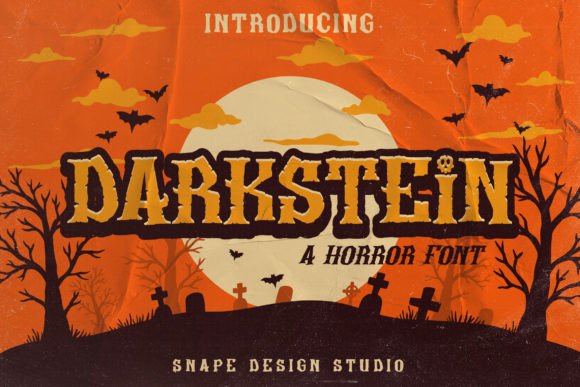
Prepare to unleash the dark, haunting beauty of Darkstein, a horror-themed decorative font that will send shivers down your spine. Crafted by the skilled hands of snapedsgn, this font is the perfect companion for your Halloween party posters, horror-themed designs, and any project seeking a touch of the macabre.
With its jagged edges and menacing curves, Darkstein captures the essence of the supernatural, adding an eerie elegance to your designs. Each letter drips with mystery, invoking images of haunted houses, blood-curdling screams, and the spine-chilling thrill of a good scare.
Step into the realm of darkness and let Darkstein guide you through a labyrinth of chilling possibilities. Whether you're creating a movie poster that promises heart-pounding suspense, a logo that exudes an aura of mystery, or a book cover that hints at the unspeakable horrors within, Darkstein will amplify your message and leave your audience spellbound.
But Darkstein's dark allure extends beyond the realm of horror. Its playful nature lends itself to quirky designs, adding a touch of whimsy to your creative endeavors. Imagine invitations that transport your guests to a haunted carnival, or T-shirt designs that celebrate the joy of all things spooky.
Darkstein is a font that defies boundaries, embracing both the terrifying and the delightful. It's a font that demands attention, captivating your audience with its intricate details and undeniable charm. Unleash your imagination and let Darkstein cast its spell on your next project. Dare to enter the realm of the unknown and create designs that haunt the corridors of creativity.